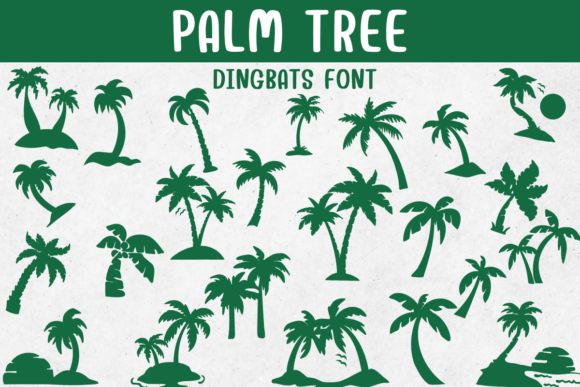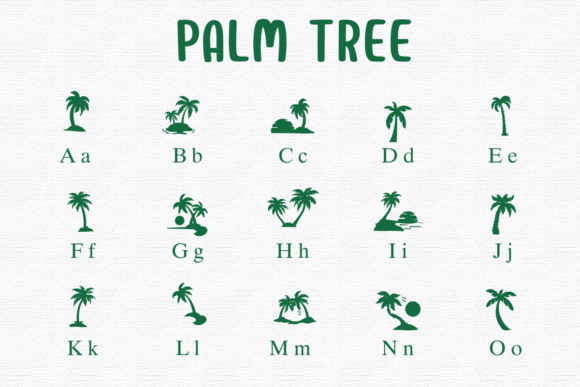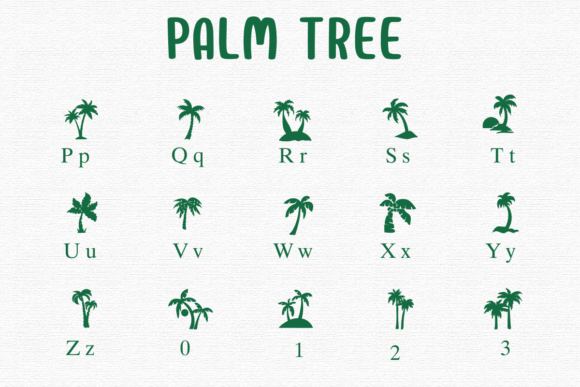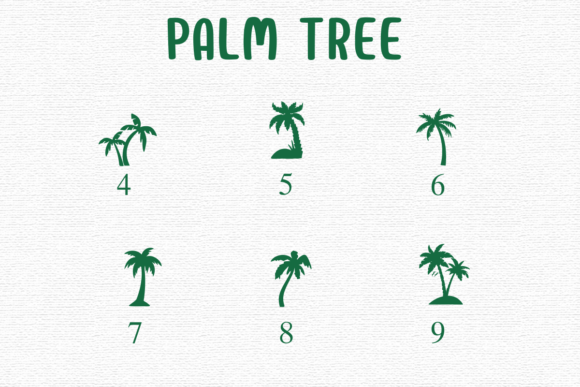
Palm Tree Font
About the Palm Tree Font
We are excited to introduce Palm Tree Font, a must-have typeface for any serious designer. Palm Tree is a collection of tropical silhouettes featuring different palm trees, island scenes, and beach elements. Ideal for summer branding, vacation-themed designs, tropical party invitations, and travel-related artwork, this font brings a breezy and relaxed vibe to any project.
Palm Tree’s playful, yet relaxed personality makes it perfect for branding projects focused on leisure, tourism, or summer-themed products. It excels in headlines, short slogans, and logos, adding a touch of carefree tropical energy. However, its decorative nature makes it unsuitable for body text or UI elements where readability is paramount.
For optimal visual harmony, pair Palm Tree with clean sans-serif fonts like Open Sans or Lato for a balanced contrast. Alternatively, a simple serif like Merriweather can add a touch of sophistication, grounding the playful nature of the font. Avoid pairing it with other highly decorative fonts, which would create visual clutter.
The font’s lighthearted feel works best for brands seeking to project a fun, approachable image. Consider its use in packaging for tropical drinks, beachwear, or vacation-related products. It’s also a strong choice for social media graphics, promotional materials, and event invitations needing a vibrant, summery aesthetic.
Palm Tree Font Usage Examples
Palm Tree Font Example